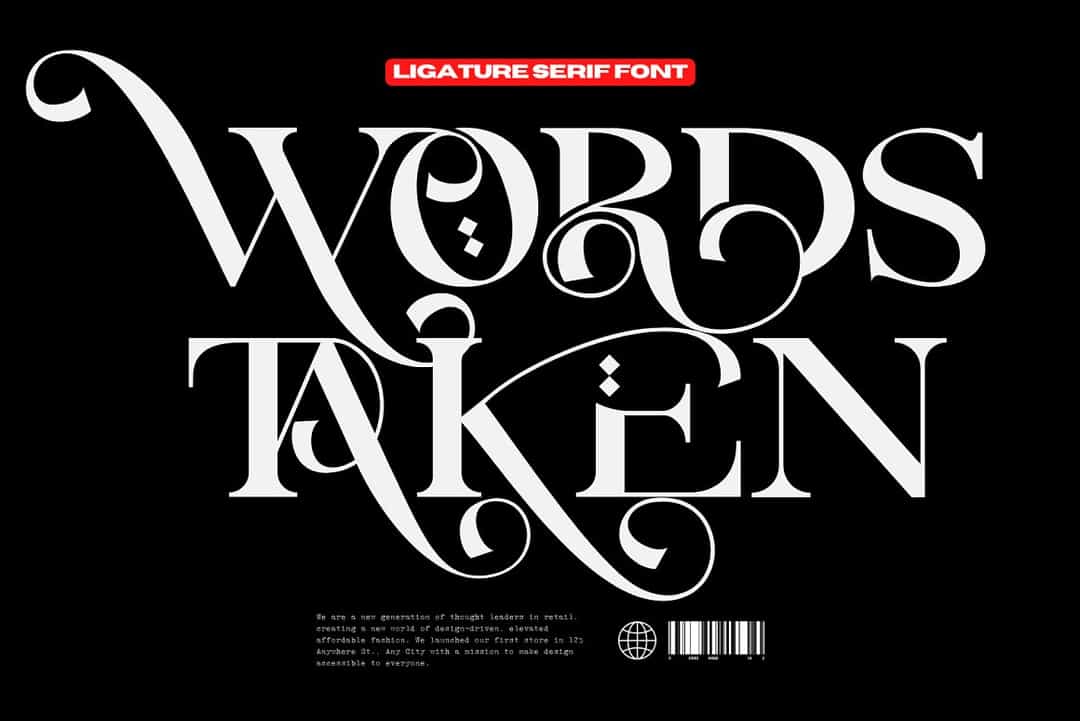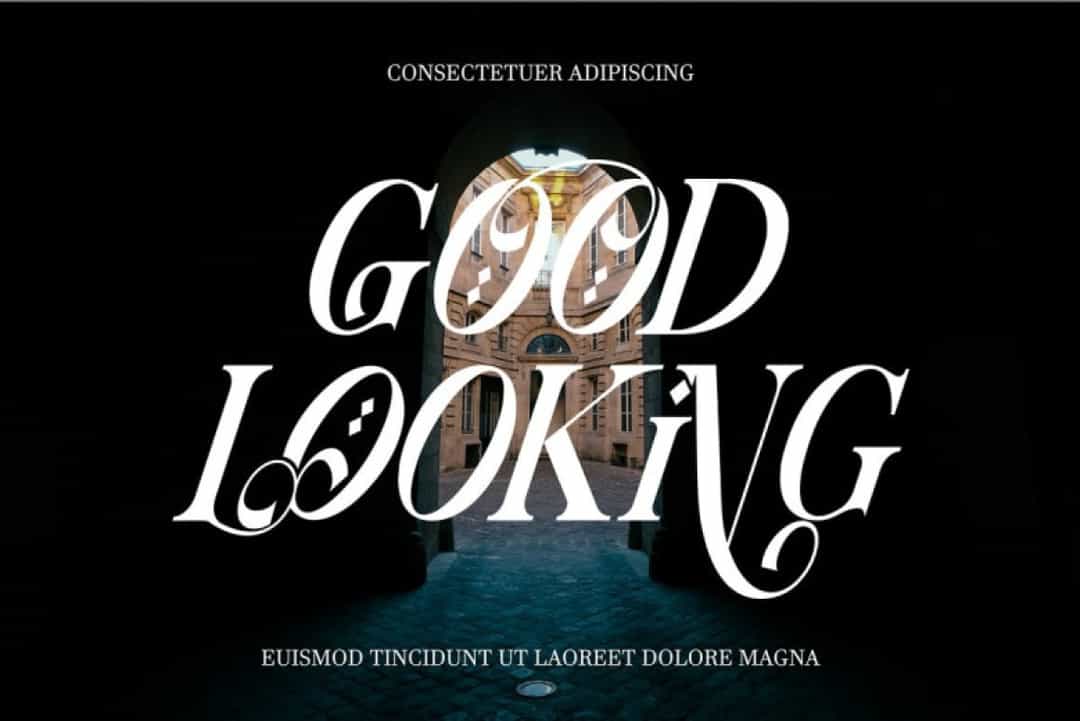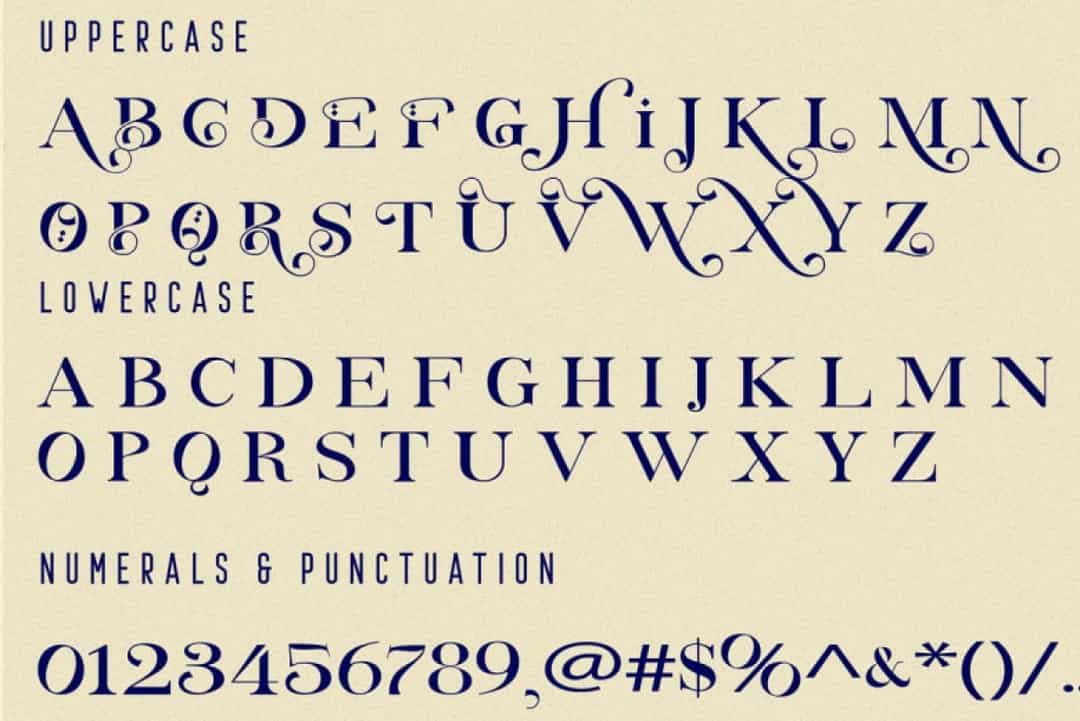
Words taken is an elegant and exquisite serif typeface designed with modern innovative forms. Featuring high contrast and beautiful curves, Words taken provides dynamic movement through its graceful characters!